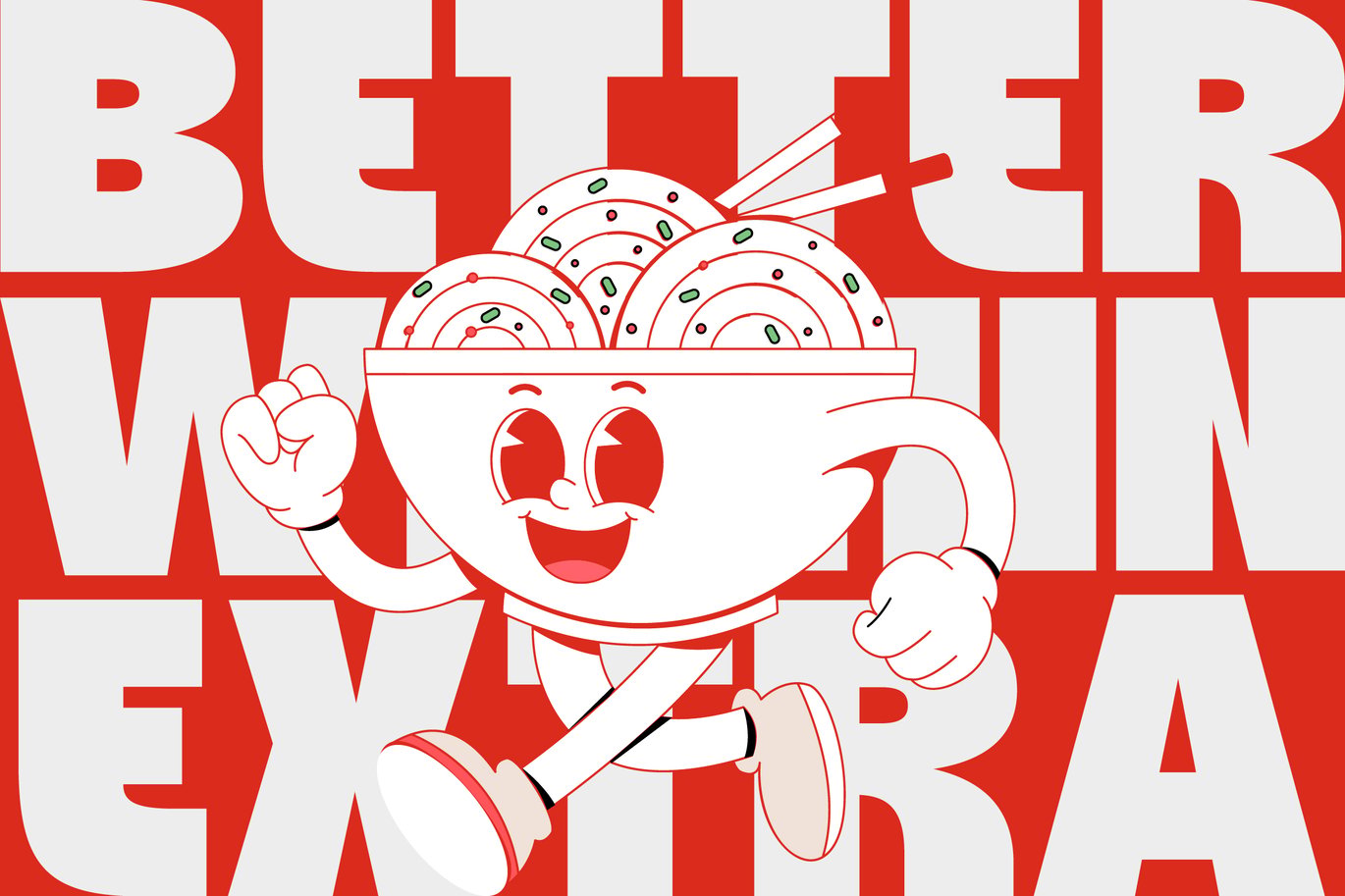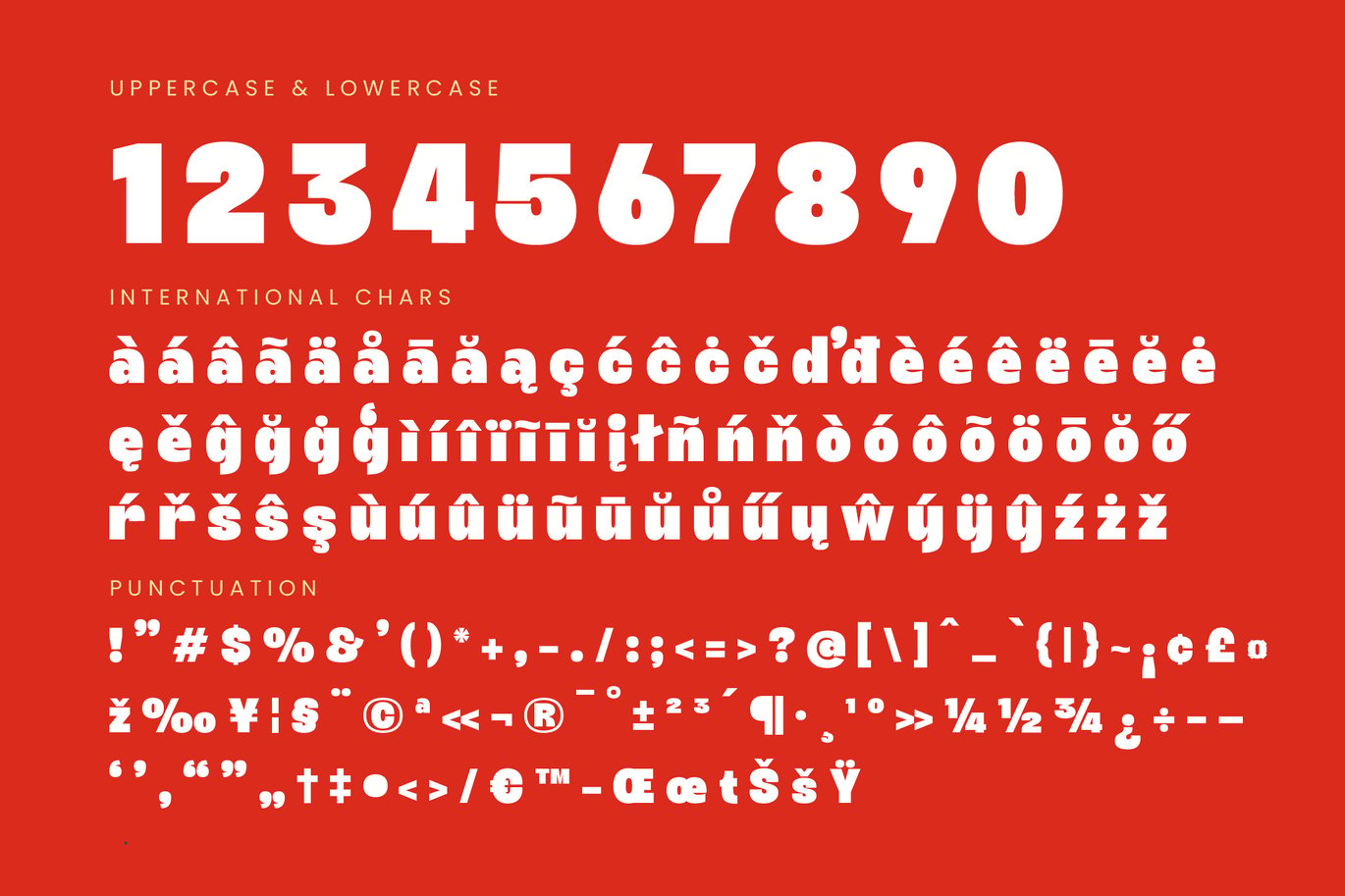
Cimo One – Bold Sans Serif Font
Cimo One – Bold Sans Serif Font is a versatile typeface ideal for various projects, including logos, branding, posters, blog headers, advertisements. The free version includes a full set of uppercase and lowercase letters, available in OTF format.